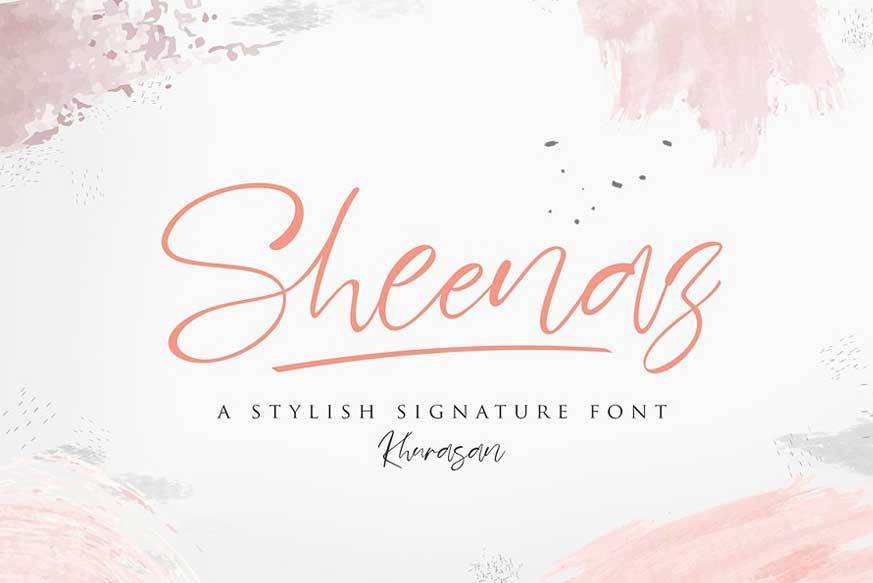
Sheenaz Script Font
Sheenaz Script Font is a fun bold script font, fresh & modern style . Sheenaz Script Font suitable for logo, branding, greeting card, poster and any design that you create.